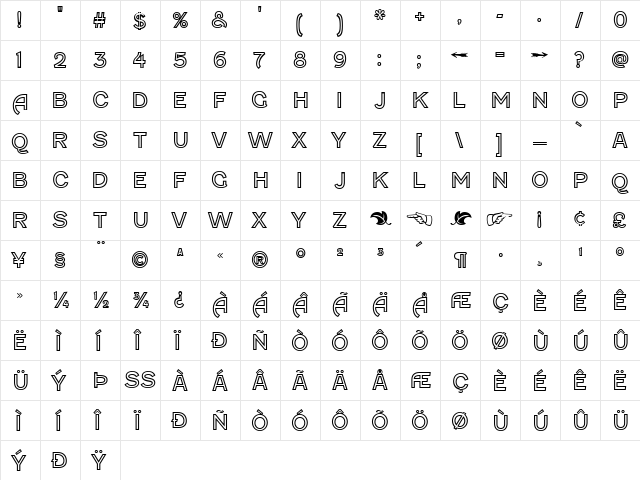
Fenwick Outline Free Regular
Design Context for Fenwick Outline Free Typeface
Fenwick Outline Free is built around its visual character rather than neutral utility — its distinctive forms are designed to make an impression at display sizes.
Font Pairing: Pair with a clean neutral sans-serif for body copy to let Fenwick Outline Free's character lead without overwhelming the composition.
Pro Tip: Treat Fenwick Outline Free as the centrepiece of your typographic hierarchy. One strong heading set in a decorative face can carry an entire layout.